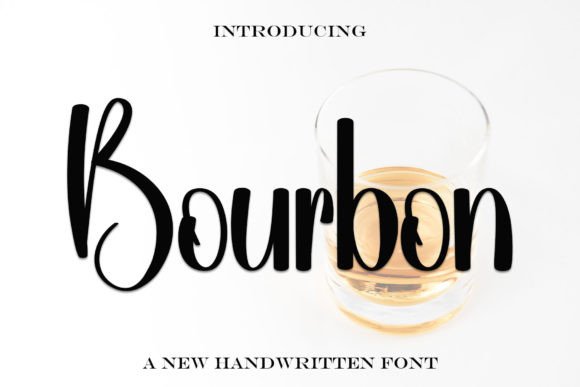
Bourbon Font: The Perfect Holiday Typeface for Your Designs
The holiday season is upon us, and with it comes the need for festive and fun designs that capture the spirit of the season. If you’re looking for a typeface that embodies the cheer and nostalgia of the holidays, look no further than the Bourbon font. This decorative font is perfect for adding a touch of charm to your designs, whether you’re creating greeting cards, gift labels, or holiday-themed projects.
What is Bourbon Font?
Bourbon font is a festive and happy typeface that is designed to evoke the feeling of the holiday season. With its unique flair and decorative elements, it’s the perfect addition to any design project that requires a touch of holiday cheer. The font is PUA coded, which means that you can easily access all the amazing glyphs and ligatures that make this font so special.
Key Features of Bourbon Font
- Festive and Happy Design: Bourbon font is designed to capture the spirit of the holiday season, with a festive and happy design that’s perfect for greeting cards, gift labels, and holiday-themed projects.
- Decorative Elements: The font features decorative elements that add a touch of charm to your designs, making them stand out from the crowd.
- PUA Coded: The font is PUA coded, which means that you can easily access all the amazing glyphs and ligatures that make this font so special.
- Unique Flair: Bourbon font has a unique flair that sets it apart from other typefaces, making it perfect for designers who want to add a touch of personality to their designs.
Uses for Bourbon Font
Bourbon font is perfect for a variety of design projects, including:
- Greeting Cards: Add a touch of holiday cheer to your greeting cards with Bourbon font, perfect for Christmas, Hanukkah, or any other holiday.
- Gift Labels: Make your gifts stand out with custom labels featuring Bourbon font, adding a personal touch to your presents.
- Holiday-Themed Projects: Whether you’re creating a holiday-themed website, social media post, or print project, Bourbon font is the perfect addition to add a touch of festive flair.
Benefits of Using Bourbon Font
There are many benefits to using Bourbon font in your designs, including:
- Highly Versatile: The font is highly versatile, making it perfect for a variety of design projects.
- Unique Design: Bourbon font has a unique design that sets it apart from other typefaces, making it perfect for designers who want to add a touch of personality to their designs.
- PUA Coded: The font is PUA coded, which means that you can easily access all the amazing glyphs and ligatures that make this font so special.
Tips for Using Bourbon Font
Here are a few tips for using Bourbon font in your designs:
- Use it Sparingly: Bourbon font is a decorative font, so it’s best to use it sparingly to add a touch of festive flair to your designs.
- Pair it with Other Fonts: Bourbon font pairs well with other fonts, so feel free to experiment with different font combinations to find the perfect look for your design.
- Experiment with Colors: Bourbon font looks great in a variety of colors, so don’t be afraid to experiment with different colors to find the perfect look for your design.
- What is Bourbon font?: Bourbon font is a festive and happy typeface that captures the spirit of the holiday season.
- Is Bourbon font PUA coded?: Yes, Bourbon font is PUA coded, which means that you can easily access all the amazing glyphs and ligatures that make this font so special.
- What can I use Bourbon font for?: Bourbon font is perfect for a variety of design projects, including greeting cards, gift labels, and holiday-themed projects.